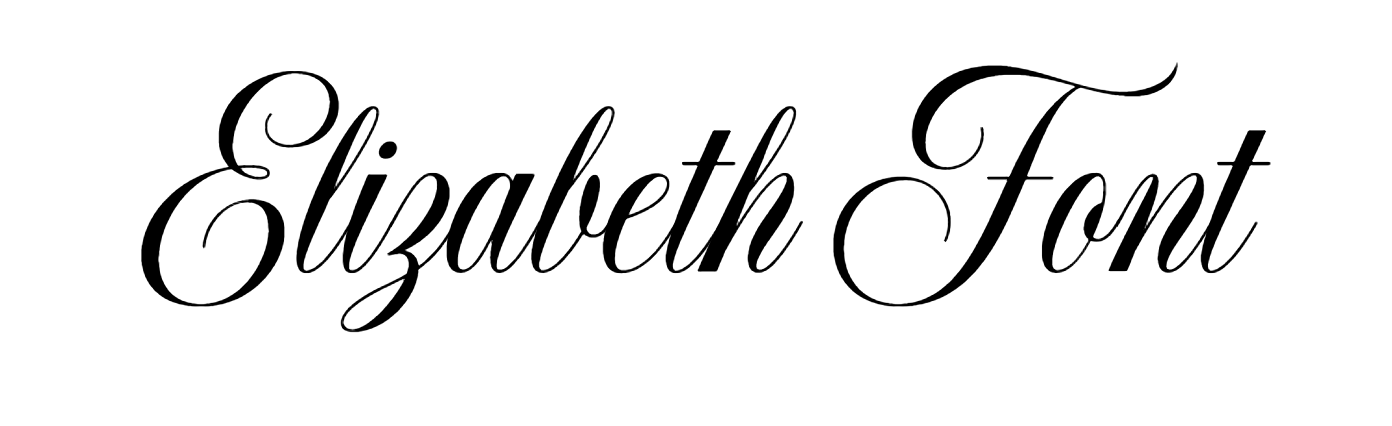
A highly popular, flowing cursive typeface featuring a varying baseline, elegant loops, and extensive PUA-encoded swashes. It is free for personal use.
Elizabeth
Elizabeth is a script font made by Seniors Studio (2018).
- Designer: Seniors Studio